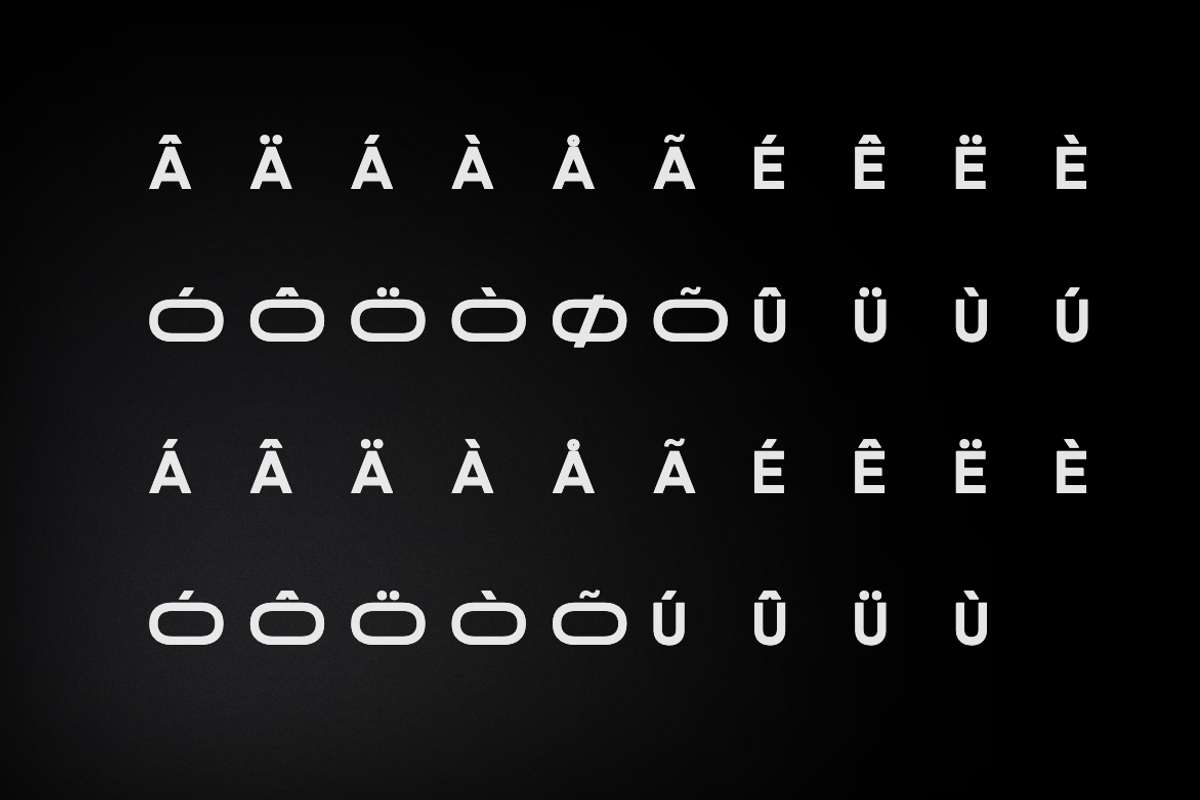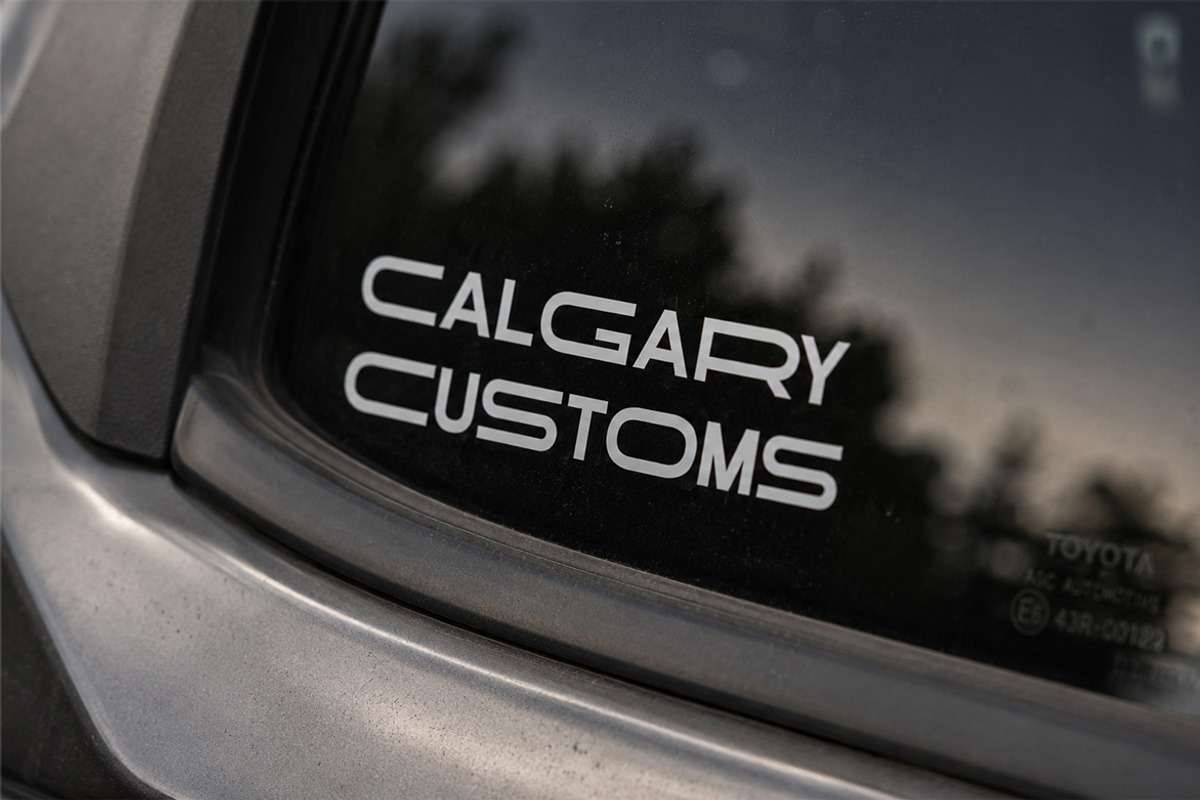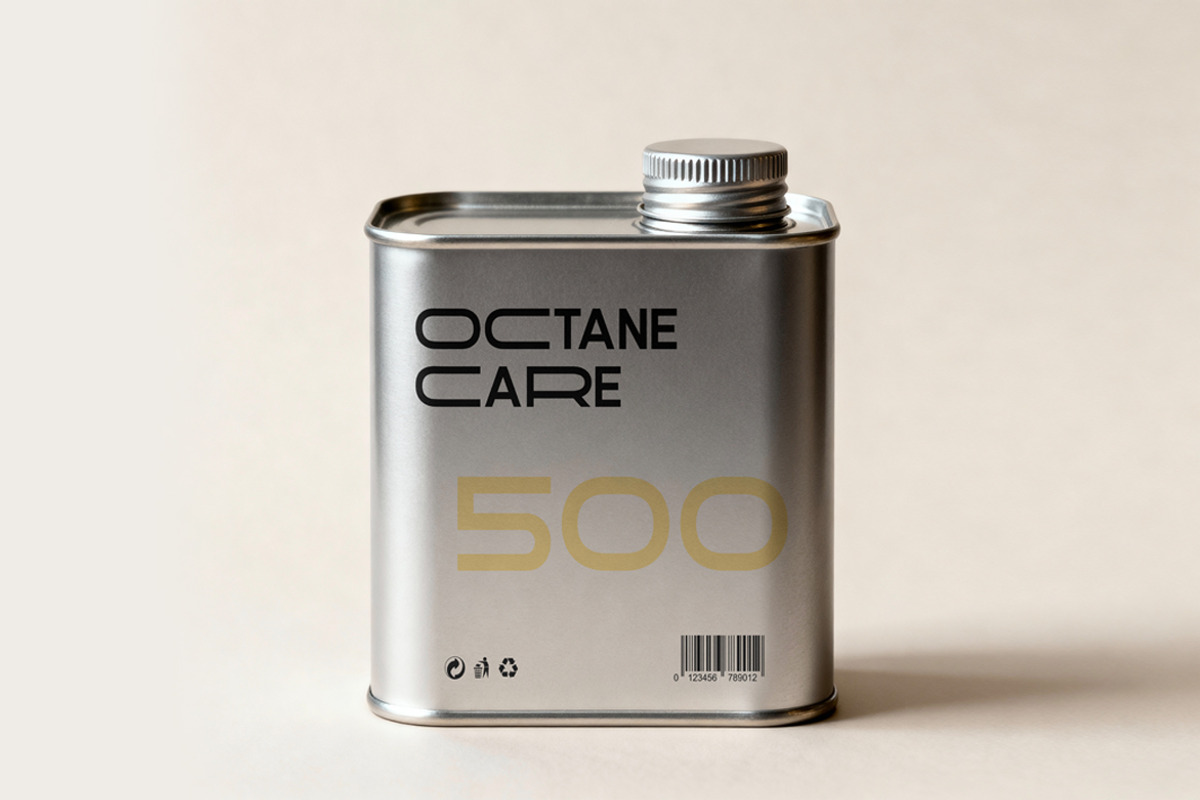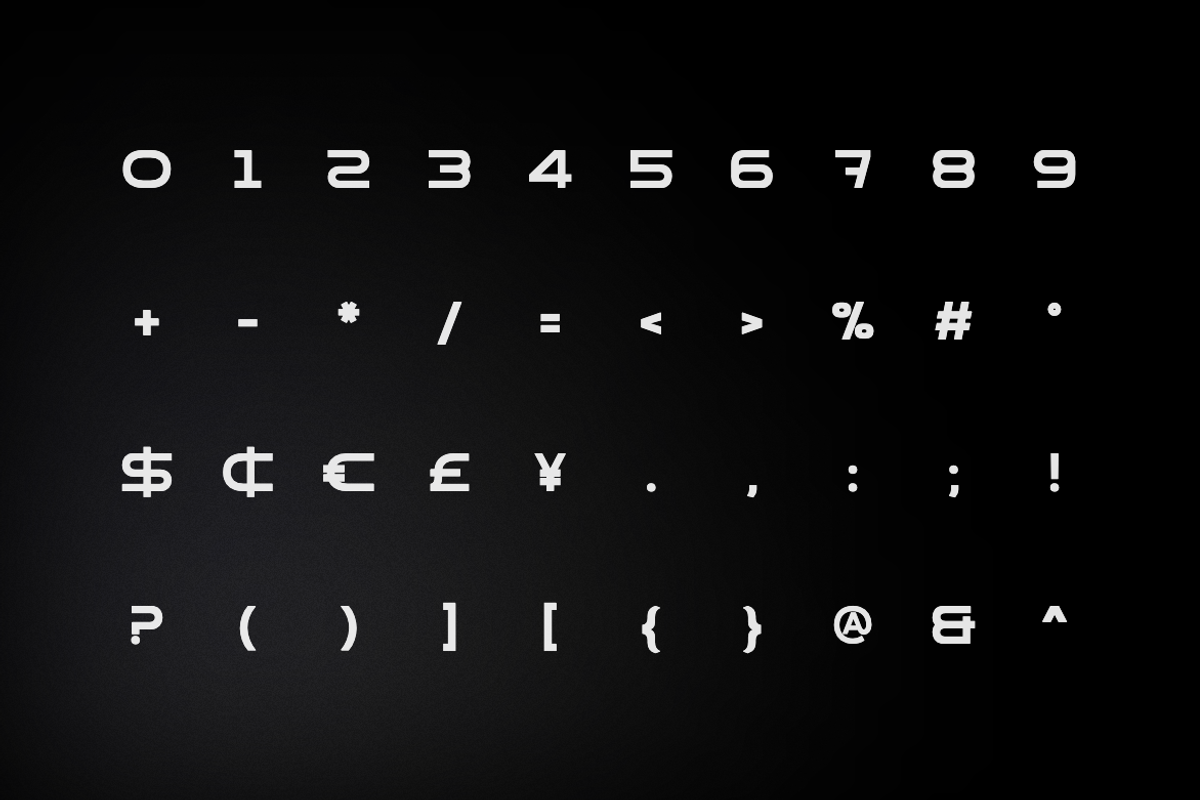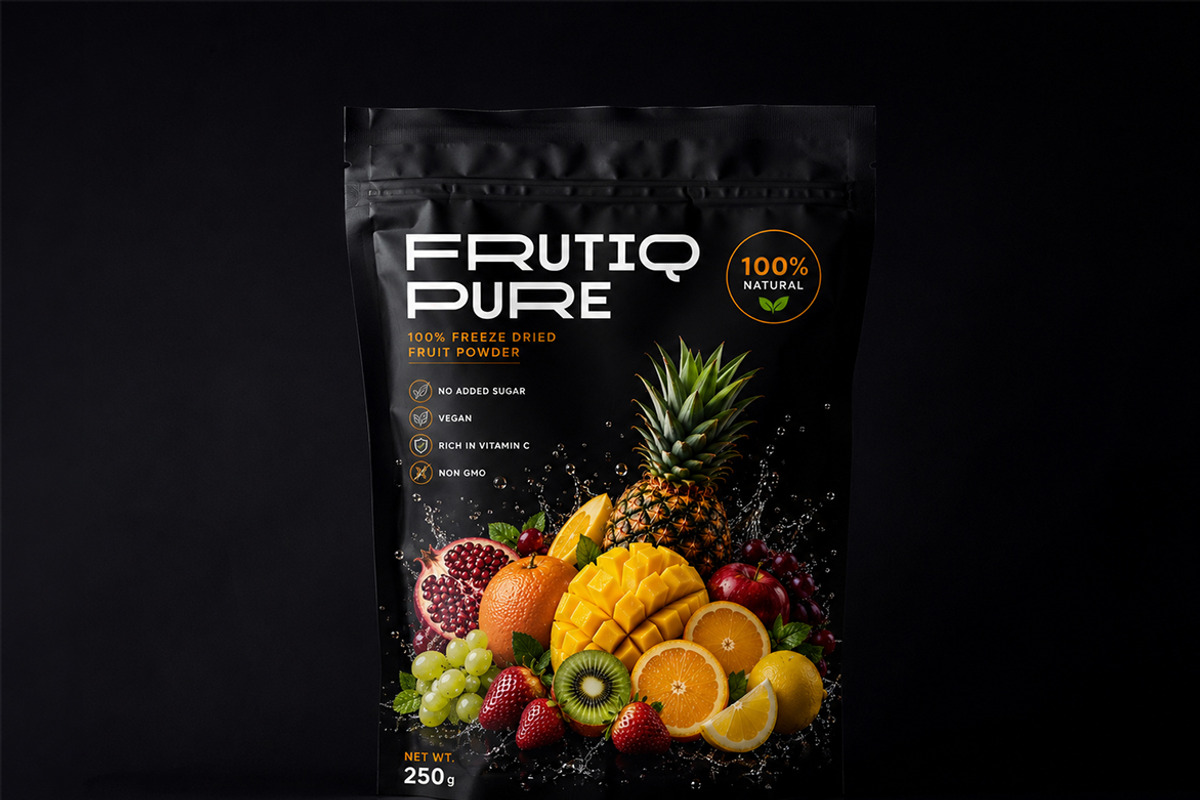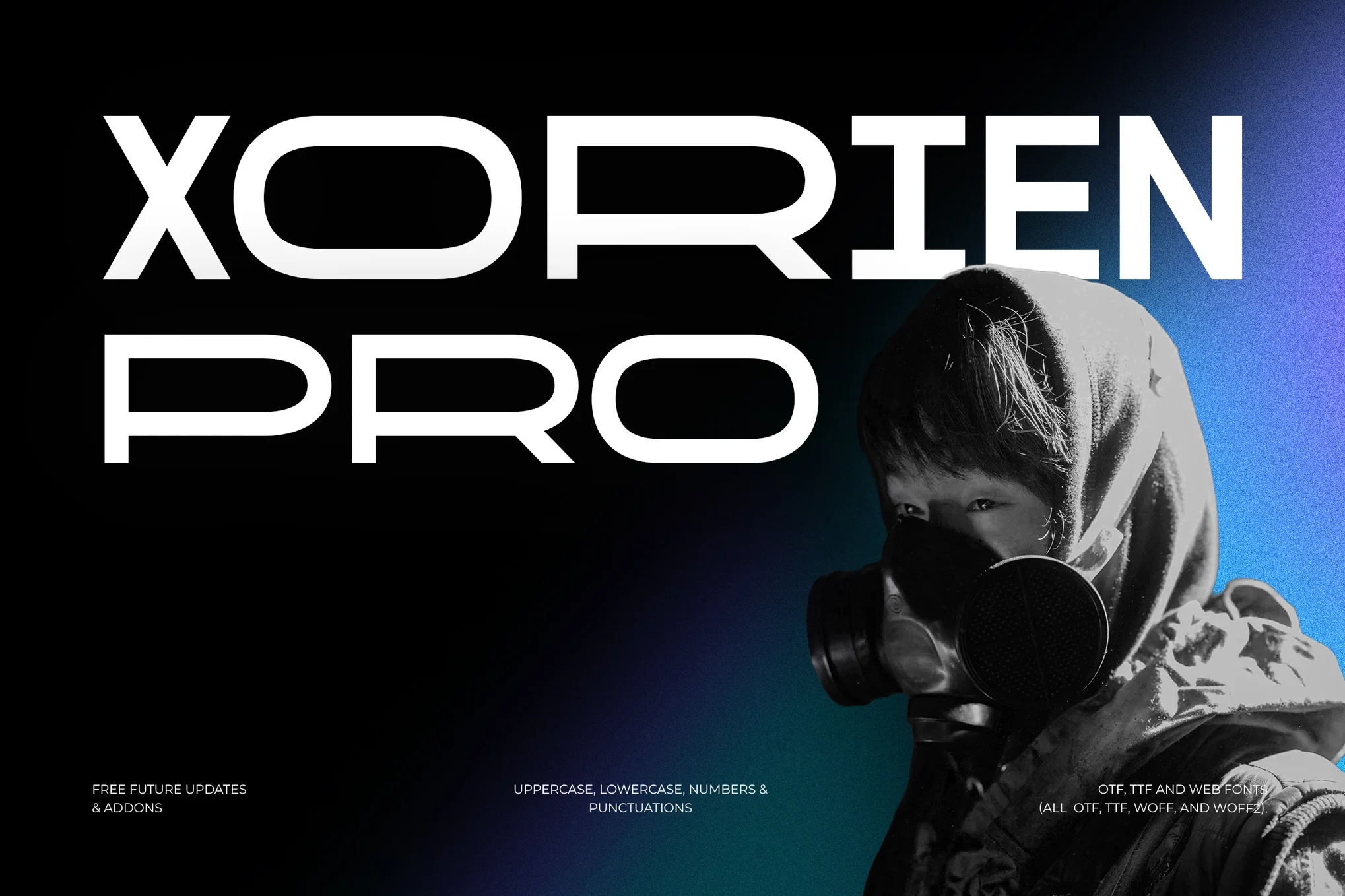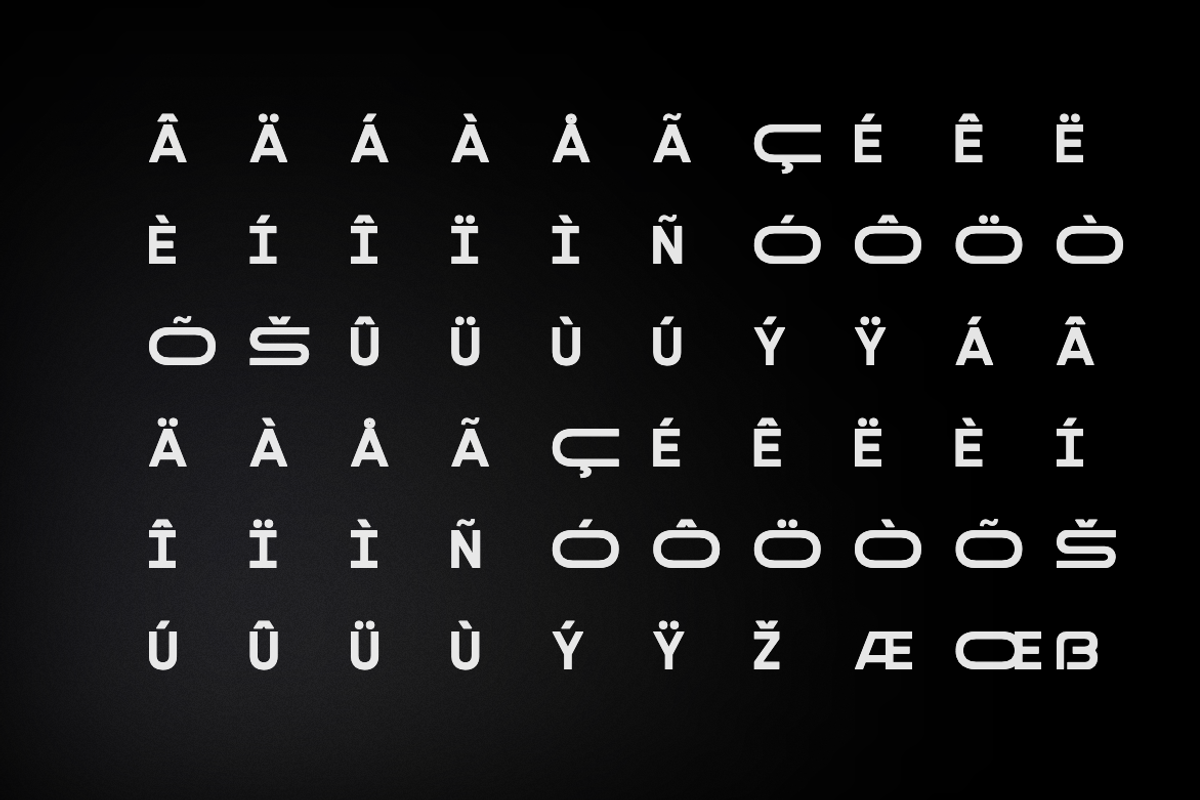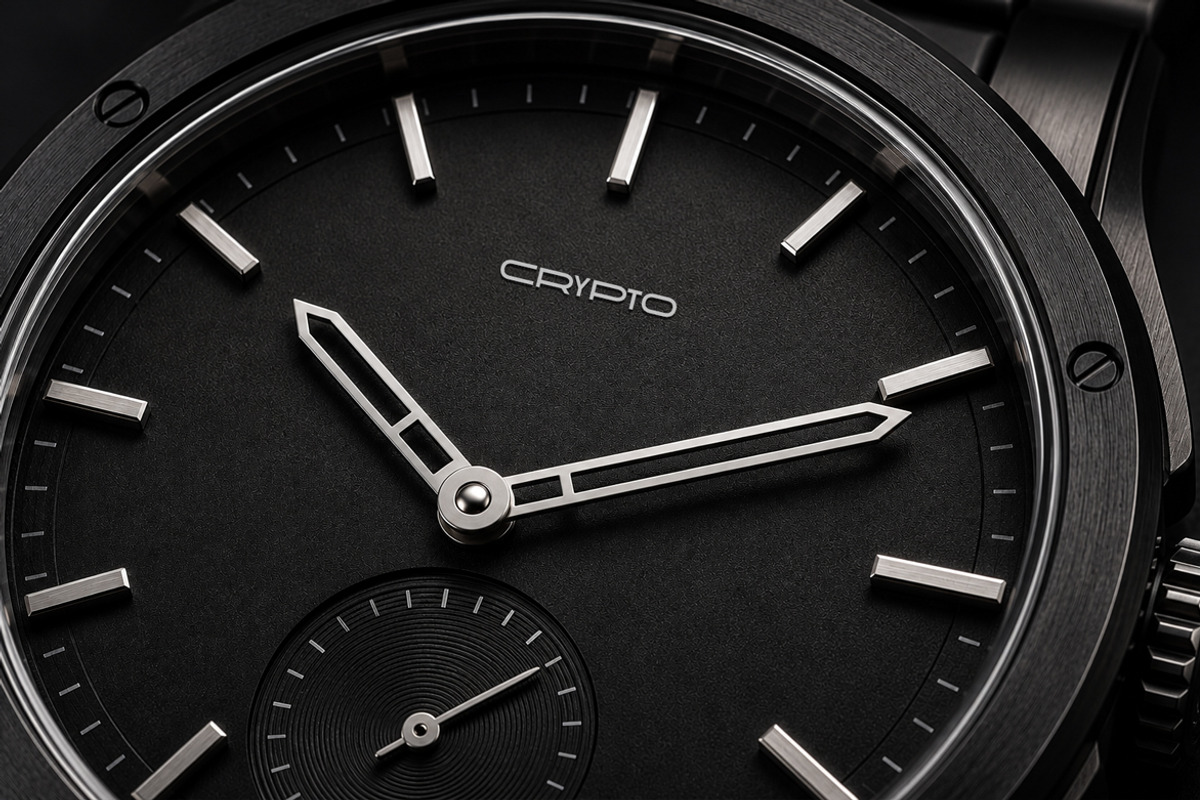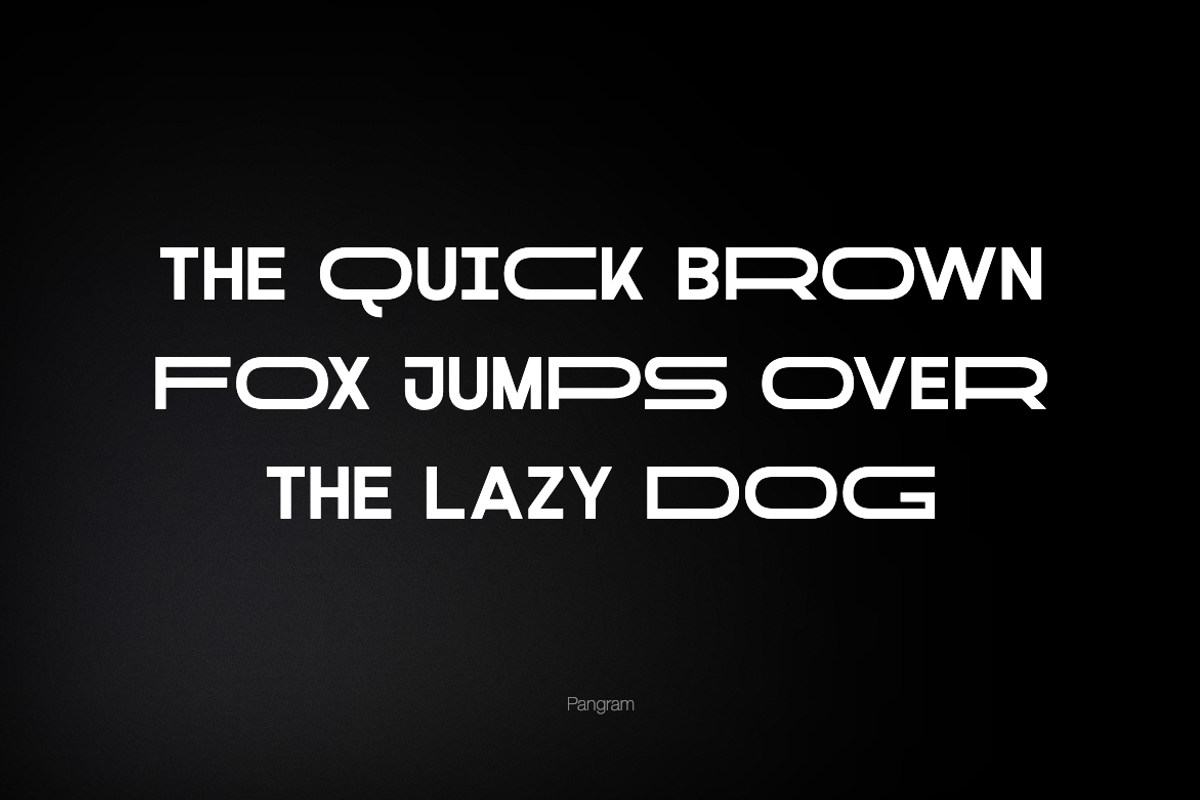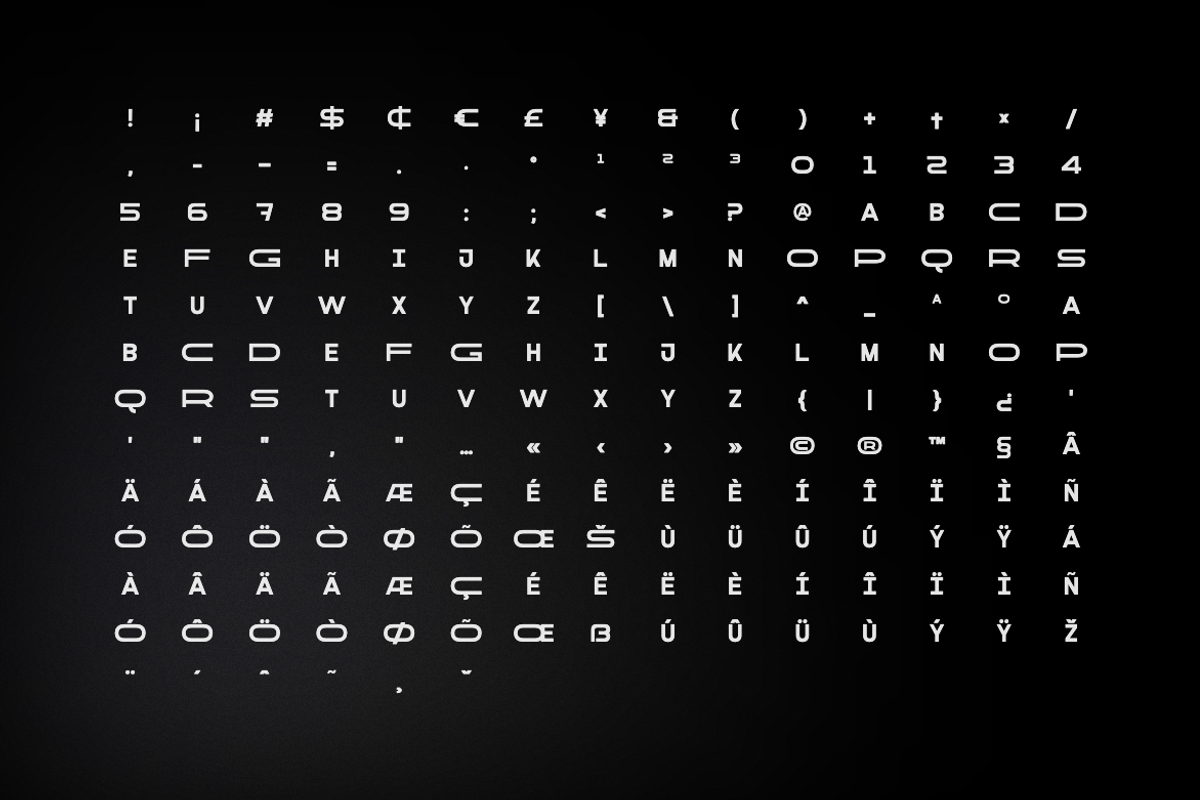
Xorien - Futuristic Display Font
Xorien is a futuristic high-fashion sans-serif typeface crafted for elegance, clarity, and timeless sophistication. With its smooth letterforms, balanced proportions, and subtle curves, Xorien is ideal for editorial design, fashion branding, luxury packaging, and stylish digital interfaces.
Designed to reflect the grace and glamour of fashion culture, Olivé includes extended Latin support and a full set of accented characters (such as á, à, â, ä, é, è, ê, ë, and more), making it suitable for multilingual applications.
Multilingual Font
Uppercase letters
200+ Glyphs
Punctuations